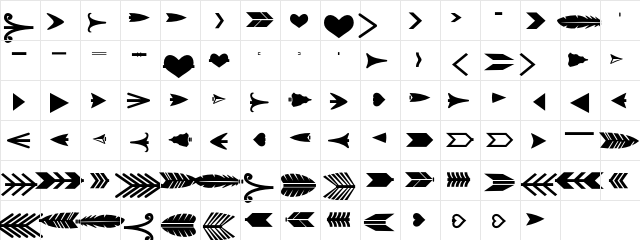
Arrow Crafter Regular
| Designer | Kay Hall |
Design Context for Arrow Crafter Typeface
Arrow Crafter is a composed and adaptable typeface that performs quietly and consistently across a wide range of design contexts.